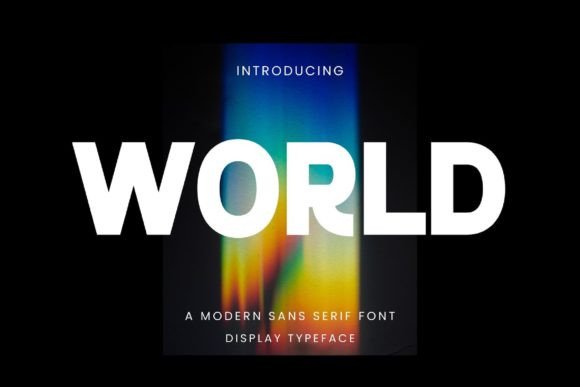
Unleash the allure of your words with World Font, the captivating sans serif font family that breathes life into your creative visions. Designed by Perfectype, this masterpiece is not just a font; it's an artistic gateway to a world of elegance and charm.
With its modern and distinctive shape, World Font exudes a natural writing style that effortlessly blends with your creative pursuits. From branding and web design to editorial, prints, crafts, and quotes, this font family is your versatile companion.
Imagine crafting logotypes that exude sophistication, wedding invitations that evoke romance, and romantic cards that capture the essence of love, labels and packaging that ooze charm, and the spelling of names that radiate personality. World Font is your creative playground, where your ideas take center stage and come alive.
Step into a world of limitless possibilities, where your imagination knows no bounds. World Font is the key to unlocking your artistic potential, transforming your creative visions into tangible masterpieces. Let your words dance with grace, let your designs captivate, and let your ideas flourish with World Font.
Add World Font to your creative arsenal today and witness the transformation of your creative endeavors. Watch as your designs take on a life of their own, captivating your audience with their charm and elegance. Embrace the power of World Font and let your creativity soar to new heights.